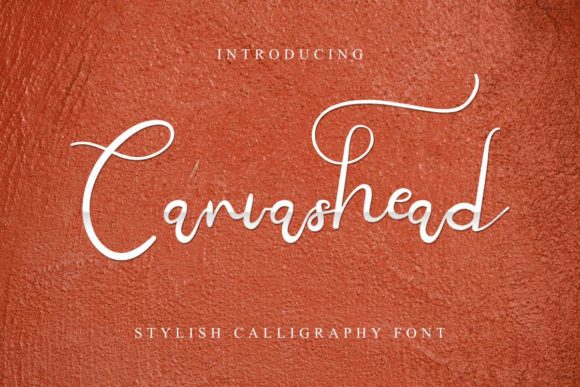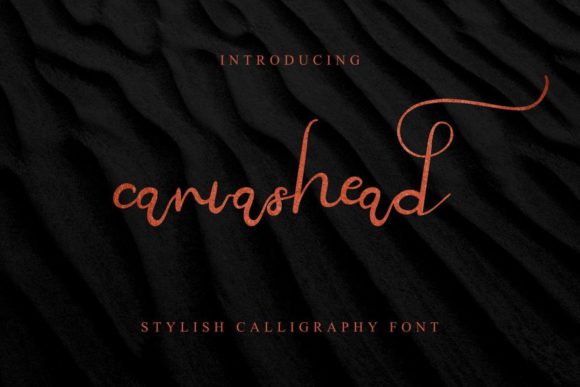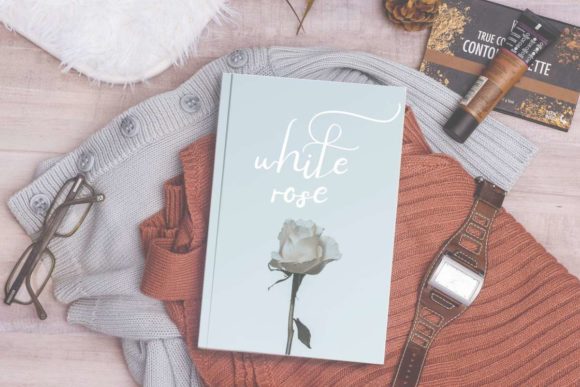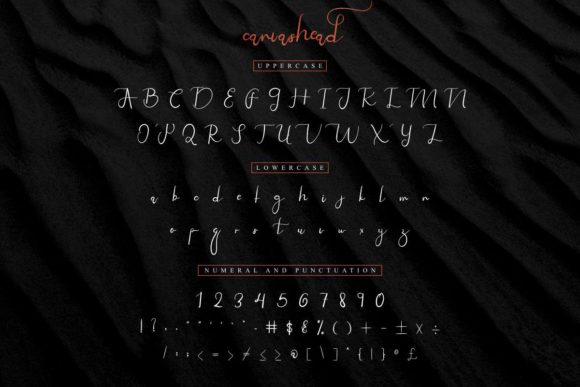
About Canvashead Font
Canvashead is a cute handwritten font. It will add a vintage and elegant touch to your projects! Whether you’re looking for fonts for Instagram or calligraphy scripts for DIY projects, Canvashead will turn any creative idea into a true piece of art!